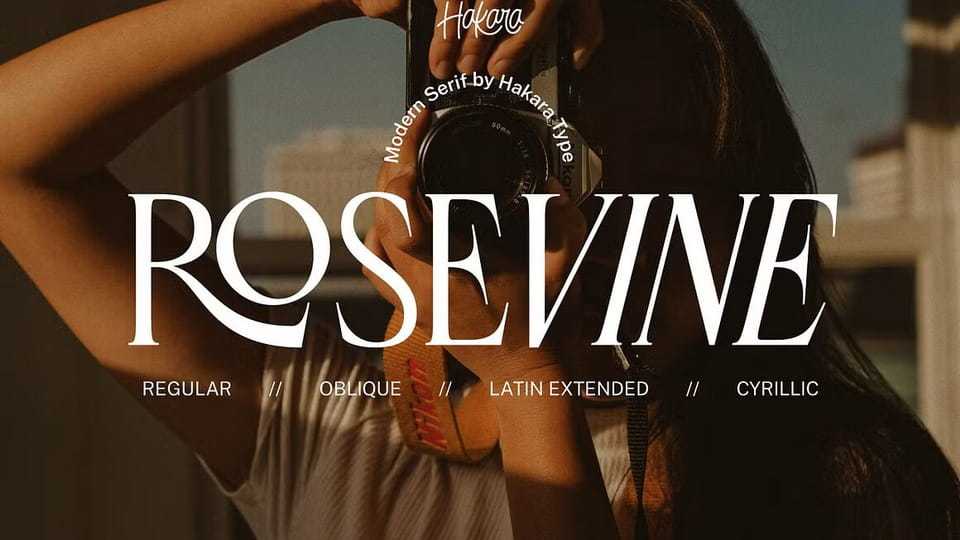
Download Rosevine font, a refined modern serif typeface designed with elegance, contrast, and timeless sophistication. It blends sharp serif details with smooth curves, creating a luxurious yet contemporary aesthetic
Designer: Hakara Type